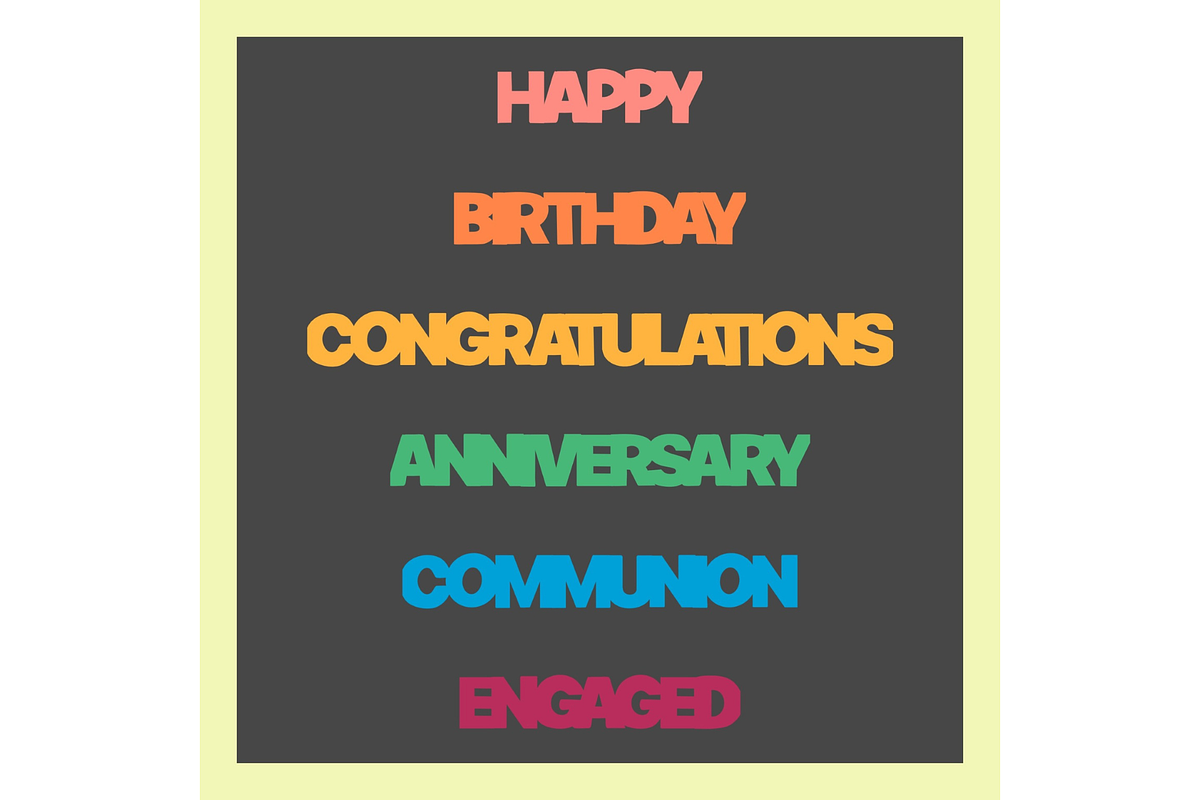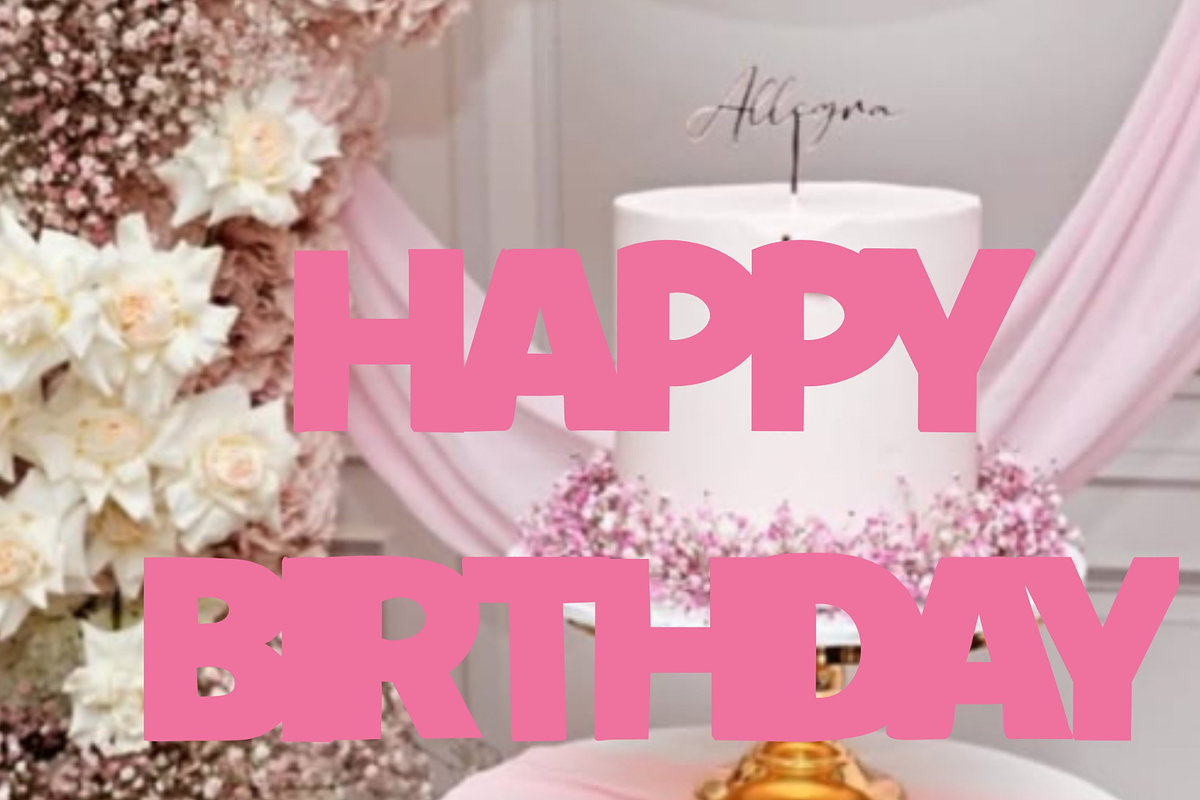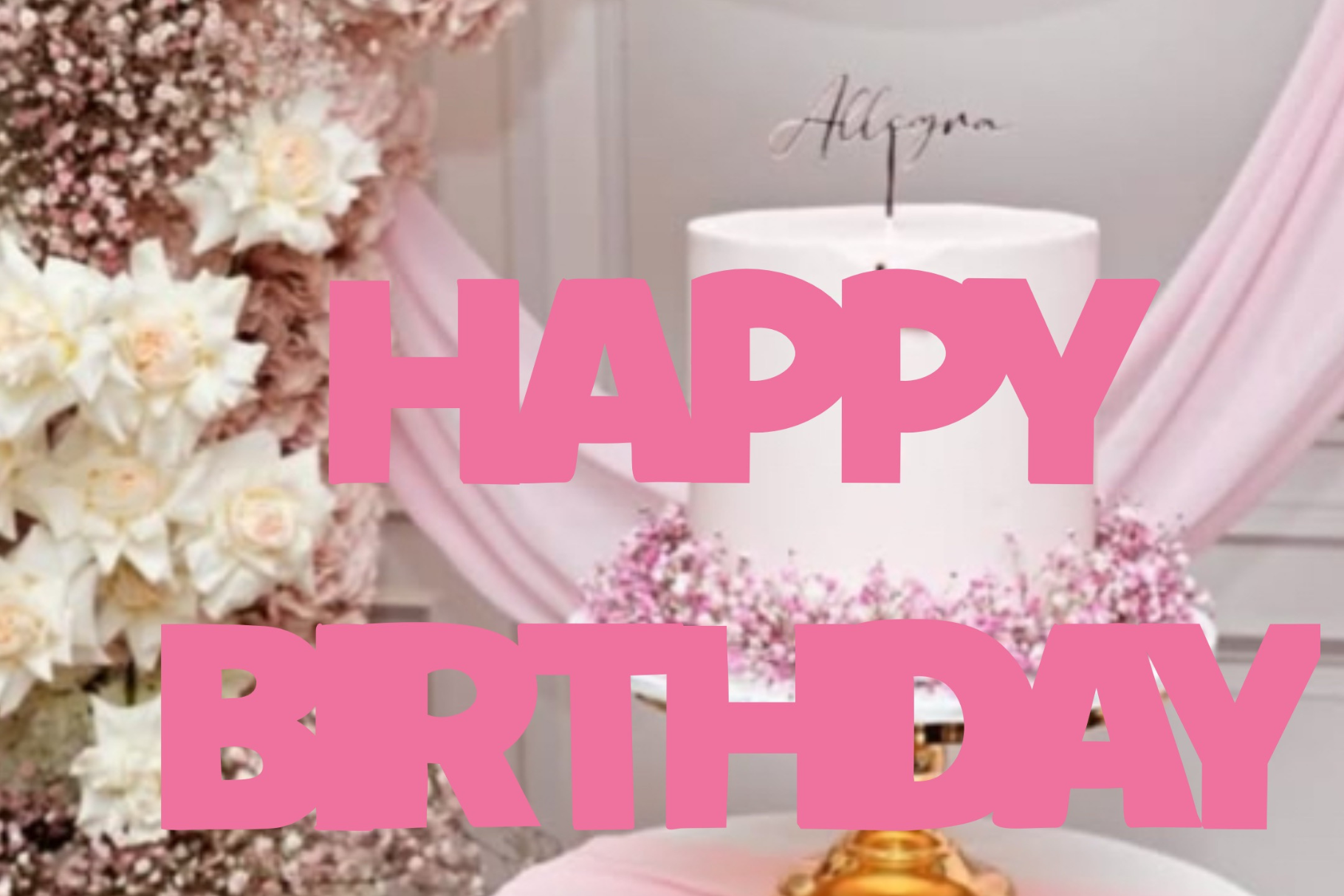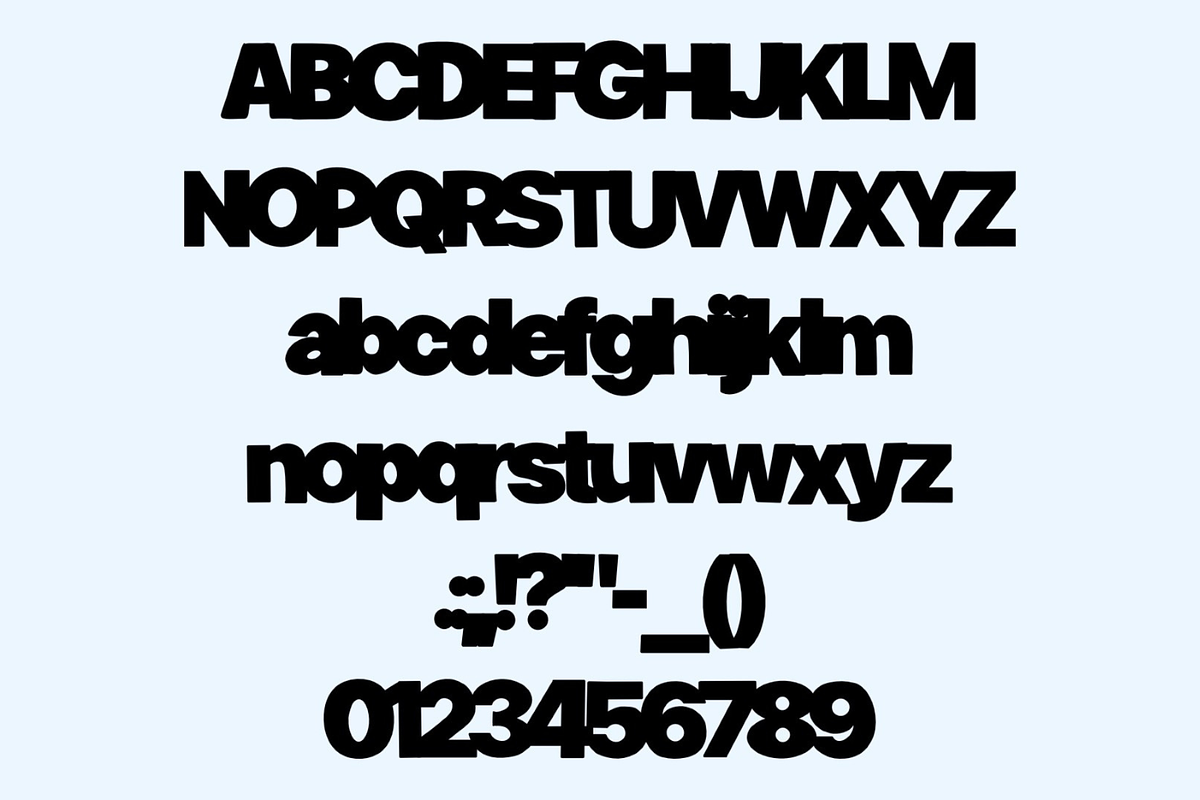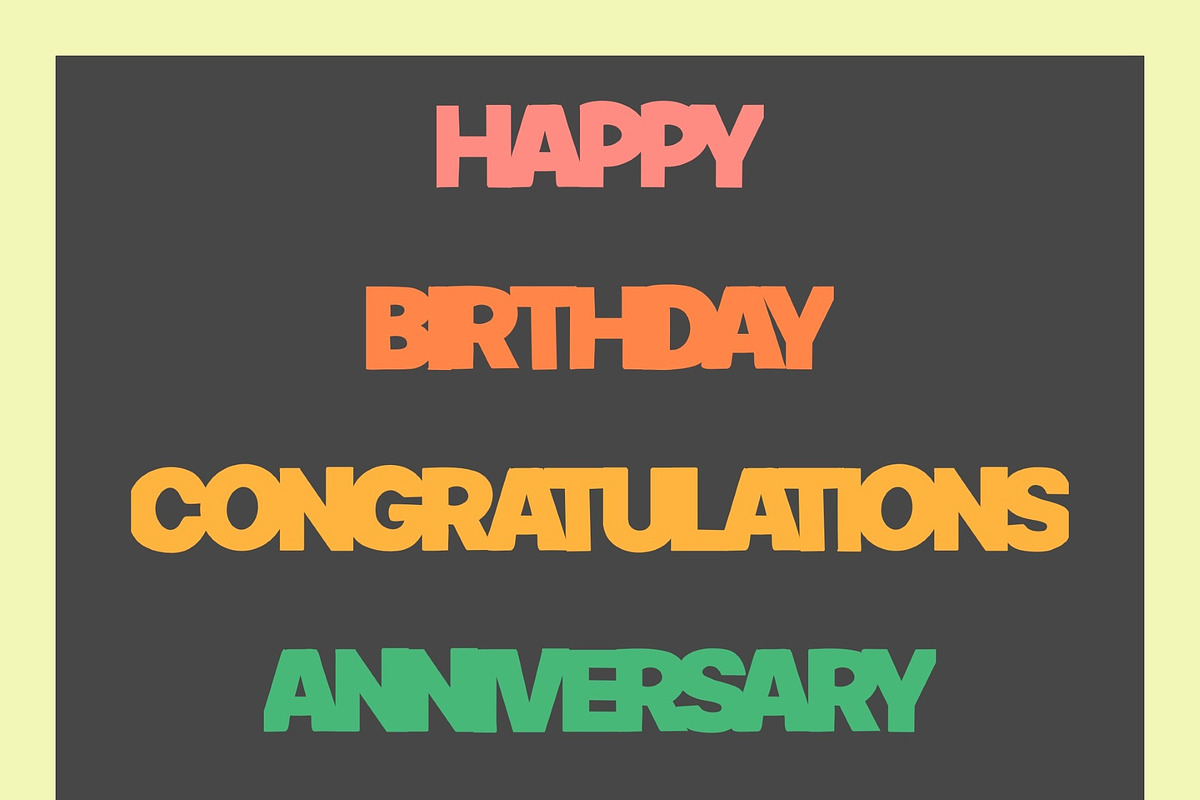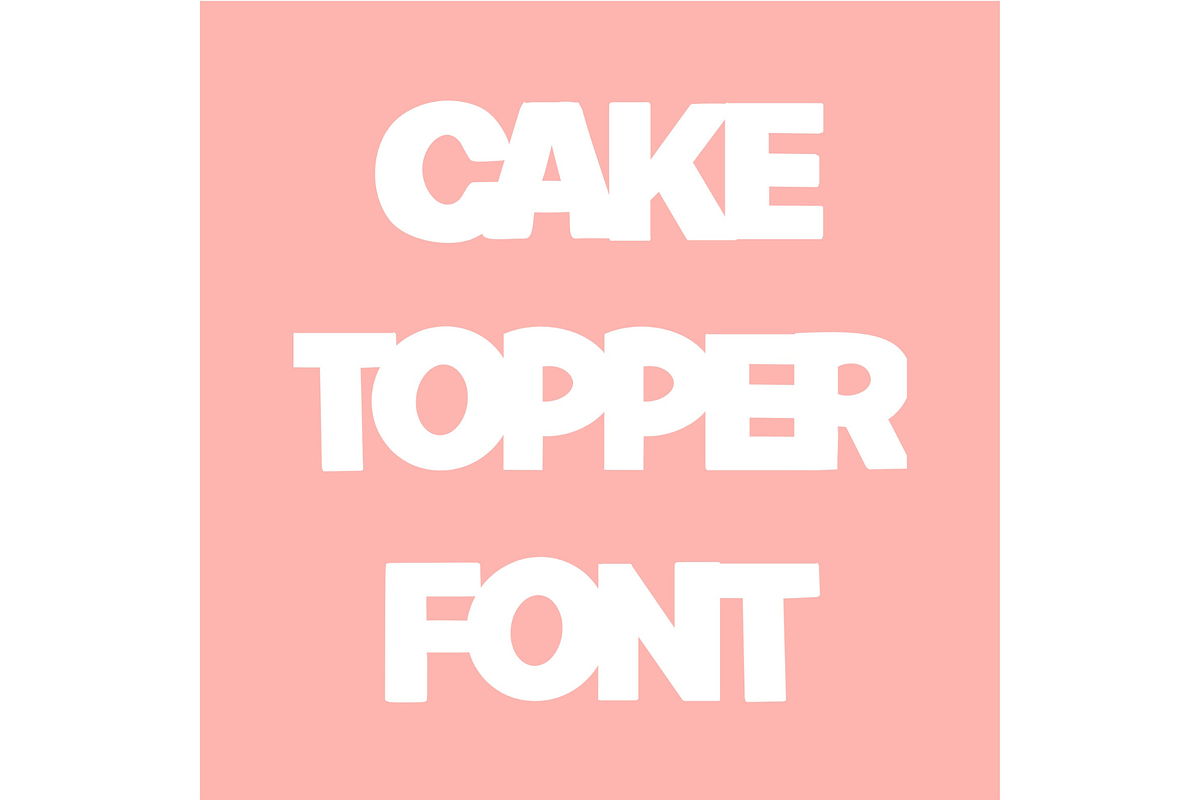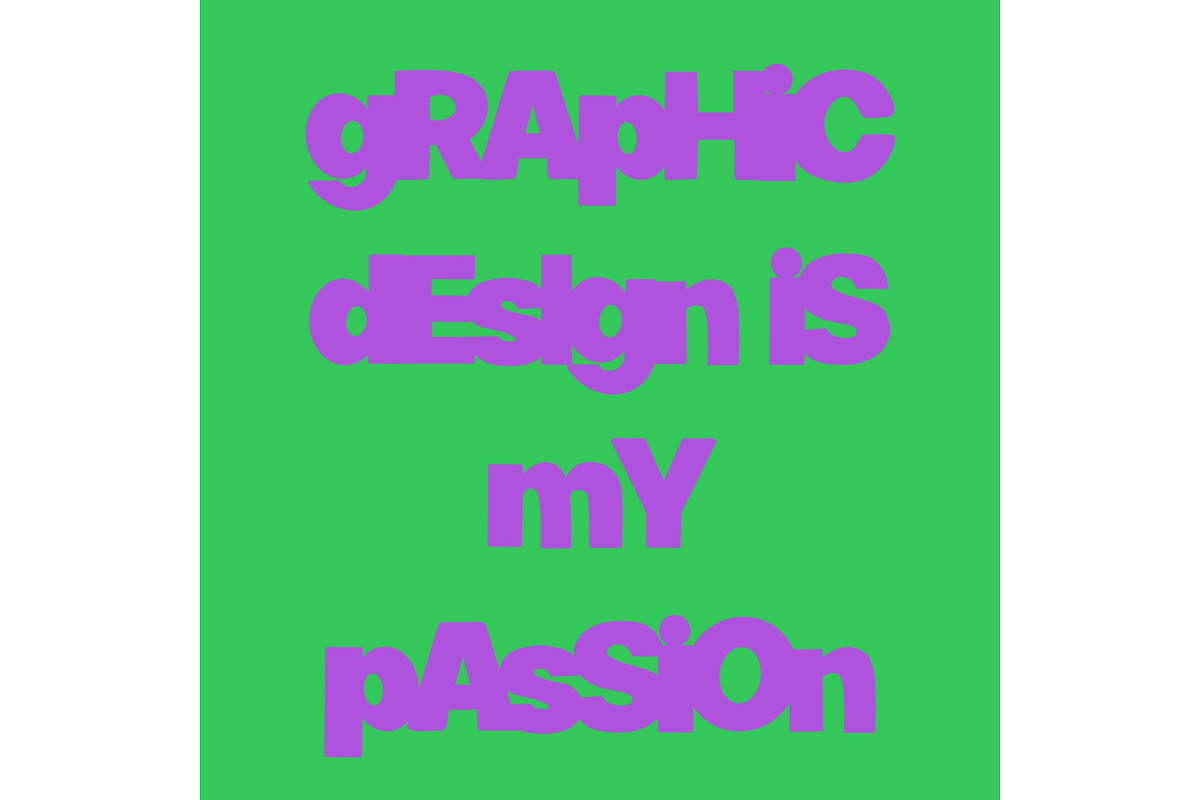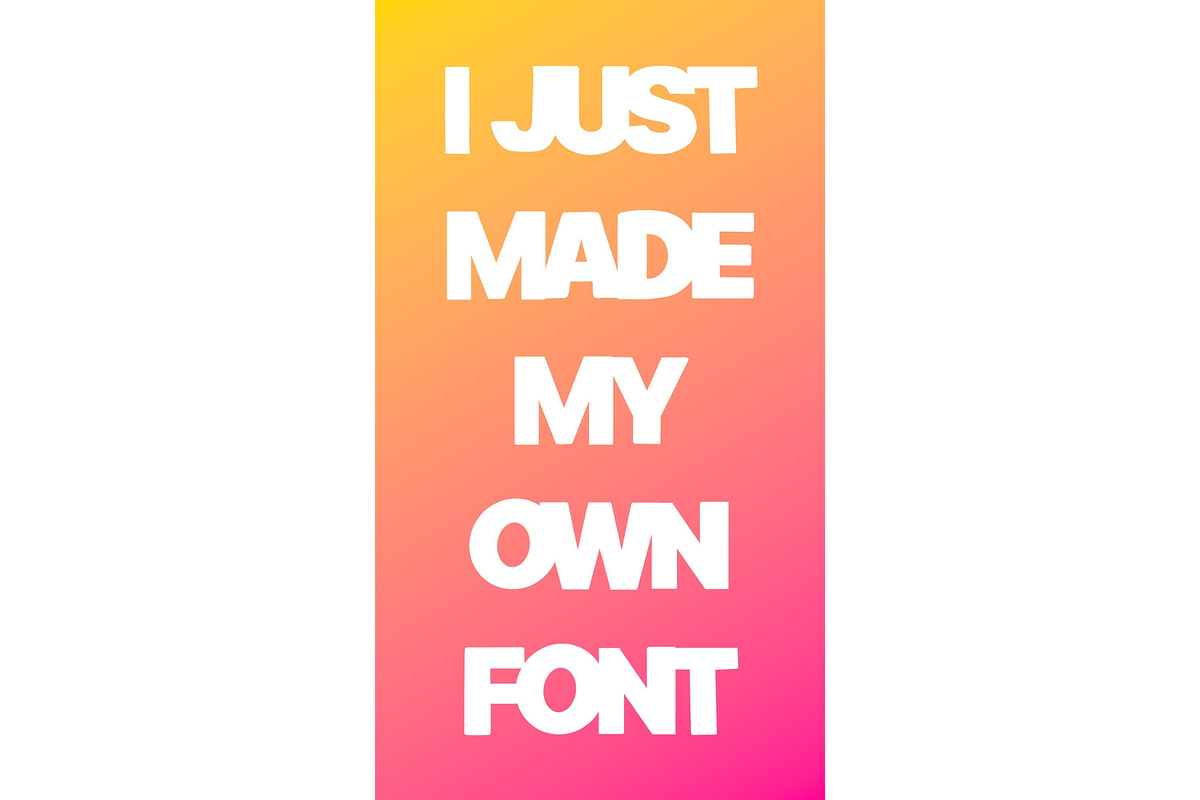
Cake Topper Joined Font
Thick Sans Serif Font – Perfect for Cake Toppers & Laser Cutting
This hand-designed script font features a bold, thick, and fully joined style, making it especially ideal for cake toppers, laser cutting, and custom decor projects.
Designed with makers in mind, this font cuts smoothly and holds together beautifully, reducing fragile joins and breakage — perfect for acrylic, wood, and cardstock. The connected lettering ensures a clean, professional finish for physical products as well as digital designs.
Ideal for:
Cake toppers & event signage
Laser cutting & engraving projects
Cricut, Silhouette, Glowforge & xTool use
Wedding, birthday & baby shower decor
Logos, branding & handmade products
Hand-drawn, unique script style
Thick strokes for strong, durable cuts
Fully joined letters for easy fabrication
Works beautifully at small and large sizes